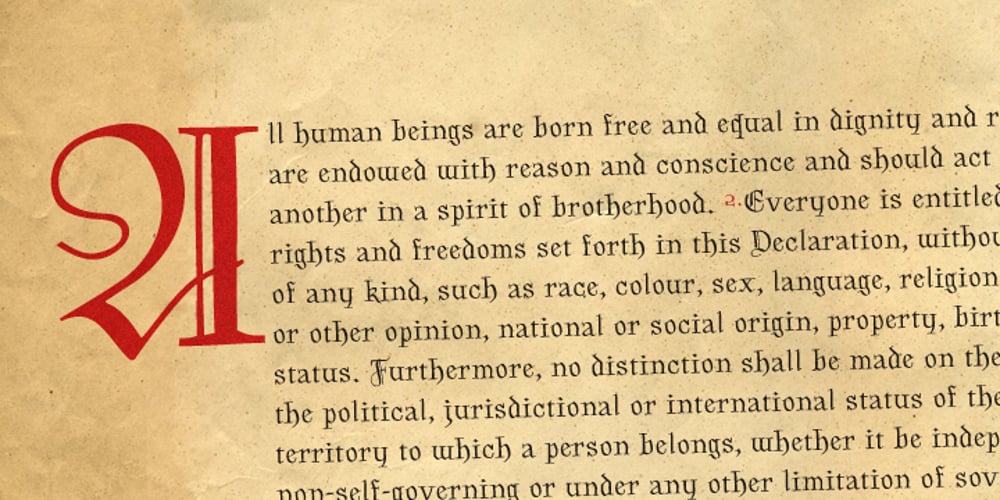
Grimm Font Family was designed by Michael Wallner and published by The Type Fetish. Grimm contains 1 styles and family package options. The origin of Grimm was to create a typeface in the spirit of Elliott Peter Earls’ Subluxation, but somewhere in the process things shifted to a blackletter influenced uppercase while the lowercase became more roman. The end result is a quirky little blackletter display typeface.